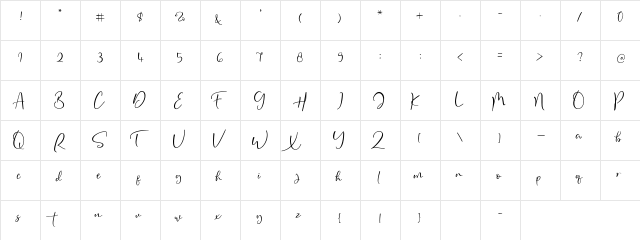
Oh Twenty Reguler Regular
| Designer | Etigletters |
Design Context for Oh Twenty Reguler Typeface
Oh Twenty Reguler is a composed and adaptable typeface that performs quietly and consistently across a wide range of design contexts.